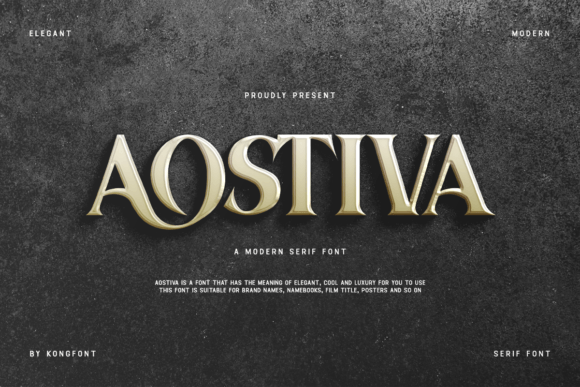
Aostiva Font: Elevate Your Designs with Timeless Elegance
In the world of typography, few fonts manage to strike a balance between classic sophistication and modern flair. Aostiva Font is one such typeface that seamlessly blends traditional elegance with contemporary refinement. This stylish serif font has been crafted to bring a sense of luxury and poise to any design project, making it an ideal choice for branding, editorial work, and high-end visual communications.
The Essence of Aostiva Font
Aostiva is more than just a font; it’s a statement of style and sophistication. Its refined serifs and well-proportioned letterforms are designed to evoke a sense of timeless beauty, making it perfect for projects that demand a touch of class. Whether you’re working on a luxury brand identity, a high-end editorial piece, or a sophisticated advertising campaign, Aostiva brings an air of elegance and refinement that is hard to match.
Key Features of Aostiva Font
- Classic Serif Design: Aostiva boasts a traditional serif design with a modern twist, making it versatile for a wide range of applications.
- Refined Serifs: The font’s serifs are carefully crafted to add a touch of sophistication and elegance to any text.
- Well-Proportioned Letterforms: Each letterform in Aostiva is meticulously designed to ensure optimal readability and aesthetic appeal.
- Timeless Beauty: Aostiva’s design ensures that it remains relevant and stylish, regardless of current trends.
- Versatility: Suitable for branding, editorial work, luxury designs, and any project requiring a sophisticated touch.
Applications of Aostiva Font
Aostiva’s versatility makes it an excellent choice for various design projects. Here are some of the areas where Aostiva truly shines:
- Branding: Establish a luxurious brand identity with Aostiva. Its elegant and refined appearance makes it perfect for high-end brands looking to convey sophistication and class.
- Editorial Work: Enhance the readability and aesthetic appeal of editorial pieces such as magazines, newspapers, and books with Aostiva’s classic yet modern design.
- Luxury Designs: Whether it’s a luxury product advertisement, a high-end fashion magazine, or an upscale event invitation, Aostiva adds a touch of elegance and refinement.
- Advertising: Use Aostiva in advertising campaigns to convey a sense of sophistication and luxury, making your brand stand out in a crowded marketplace.
Why Choose Aostiva Font?
In a world where fonts are plentiful and design trends are ever-changing, Aostiva stands out for several reasons:
- Timeless Appeal: Aostiva’s classic design ensures that your work remains stylish and relevant over time, avoiding the fleeting nature of trendy fonts.
- Elegance and Sophistication: The font’s refined serifs and elegant letterforms bring a level of sophistication to any project, making it ideal for luxury brands and high-end designs.
- Versatility: Aostiva can be used across a variety of mediums, from digital platforms to print materials, ensuring consistency in your brand’s visual identity.
- Readability: Despite its elegant design, Aostiva maintains excellent readability, making it suitable for body text as well as headlines.
How to Use Aostiva Font Effectively
To maximize the impact of Aostiva in your designs, consider the following tips:
- Pair with Complementary Fonts: While Aostiva is stunning on its own, pairing it with a sans-serif font for body text or headlines can create a visually appealing contrast.
- Adjust Letter Spacing: For headlines or emphasis, adjusting the letter spacing can add to the font’s elegance and make your text stand out.
- Utilize Font Weights: Aostiva comes in various weights. Using different weights can help create visual hierarchy and emphasize key parts of your content.
- Consider Color Choices: The right color choice can enhance Aostiva’s elegance. Neutral colors like black, navy, and gray often highlight the font’s sophistication.
Aostiva Font is a stylish serif typeface that brings a perfect blend of classic elegance and modern sophistication to any design project. Its refined serifs, well-proportioned letterforms, and timeless beauty make it an ideal choice for luxury brands, editorial work, and high-end designs. By incorporating Aostiva into your typography arsenal, you ensure that your designs convey a sense of class and sophistication, setting you apart in a competitive design landscape. Whether you’re looking to create a lasting brand identity, enhance an editorial piece, or simply add a touch of elegance to your work, Aostiva is a versatile and reliable choice.
FAQs About Aostiva Font
- What type of projects is Aostiva best suited for?
- Aostiva is ideal for luxury brands, editorial work, high-end designs, and any project that requires a touch of elegance and sophistication.
- Is Aostiva suitable for digital use?
- Yes, Aostiva is designed to be versatile and works well in both print and digital mediums.
- Can Aostiva be used for body text?
- Absolutely. Aostiva’s design ensures it remains readable even for extended passages of text.
- What makes Aostiva unique?
- Aostiva’s blend of classic serifs with modern sophistication, along with its refined and well-proportioned letterforms, sets it apart.